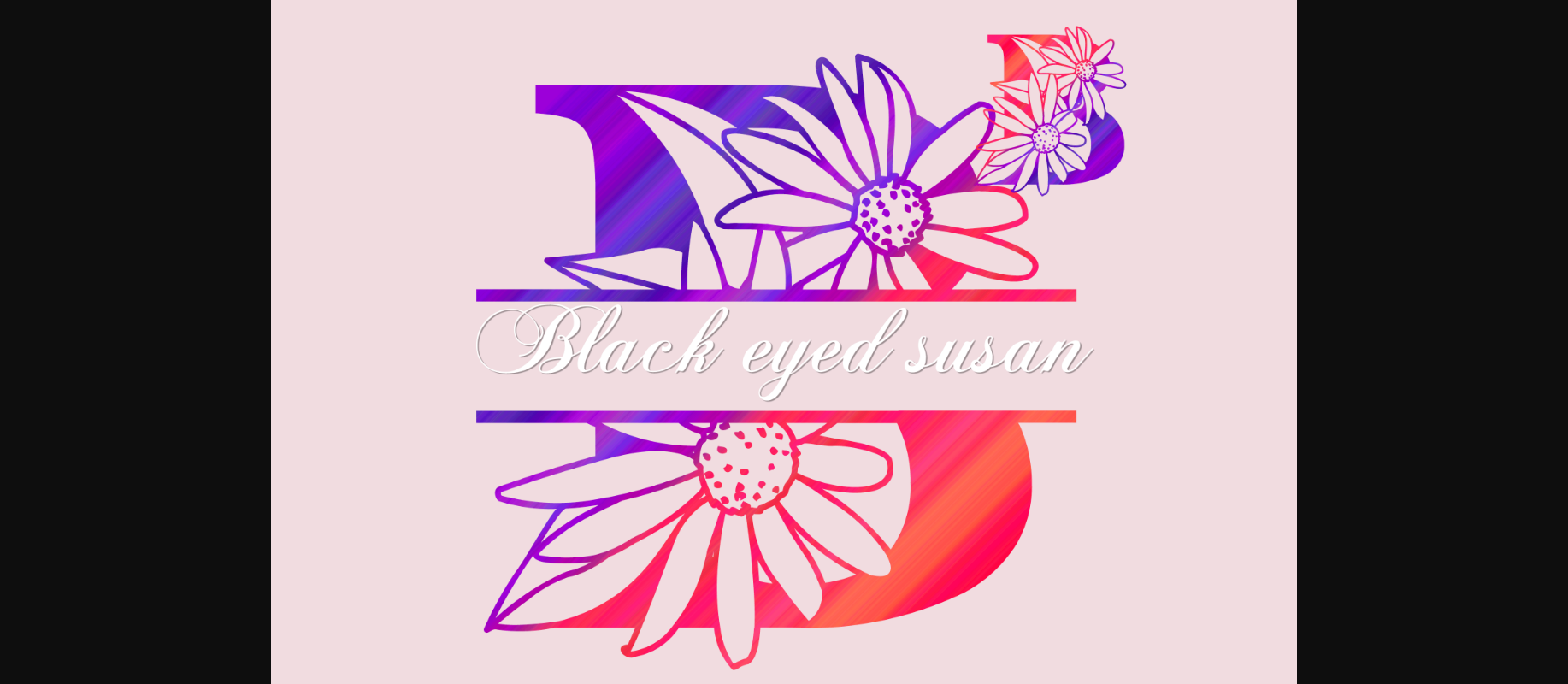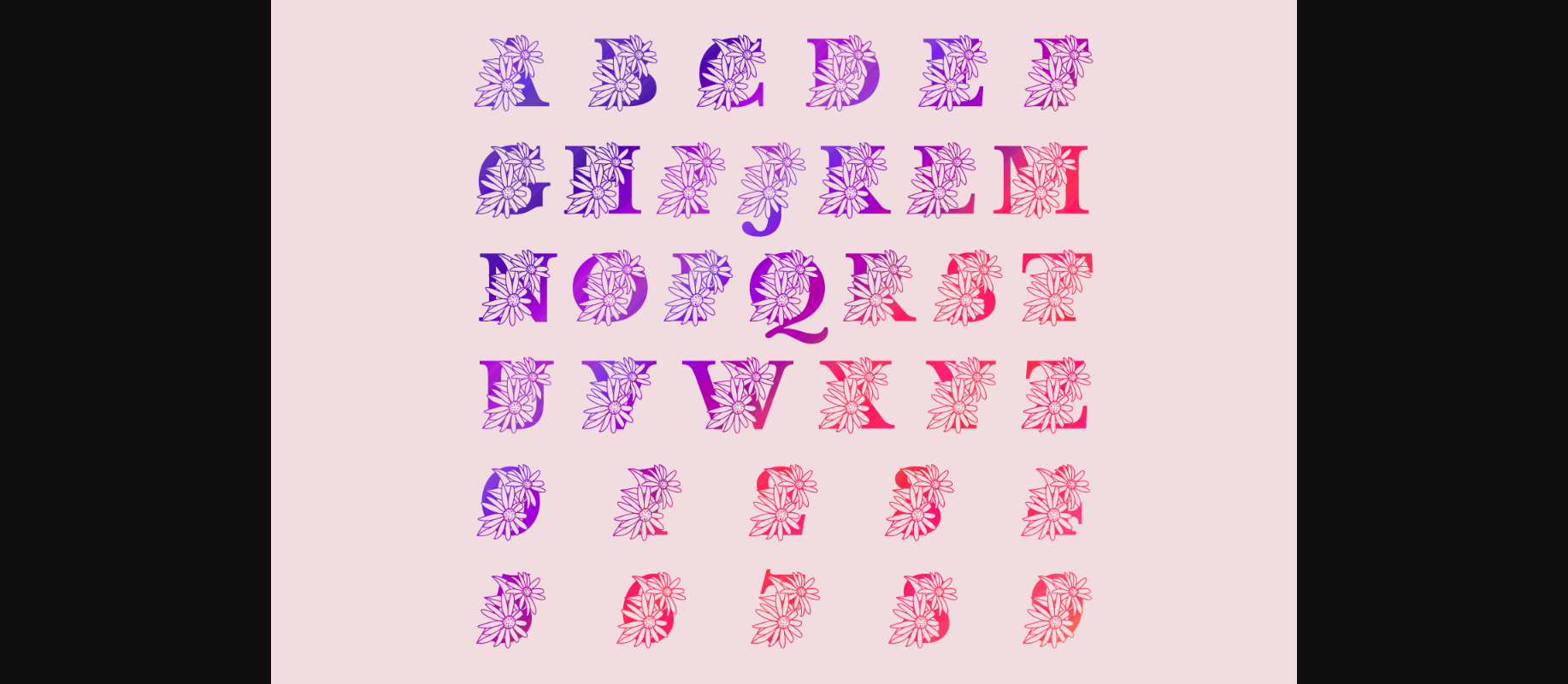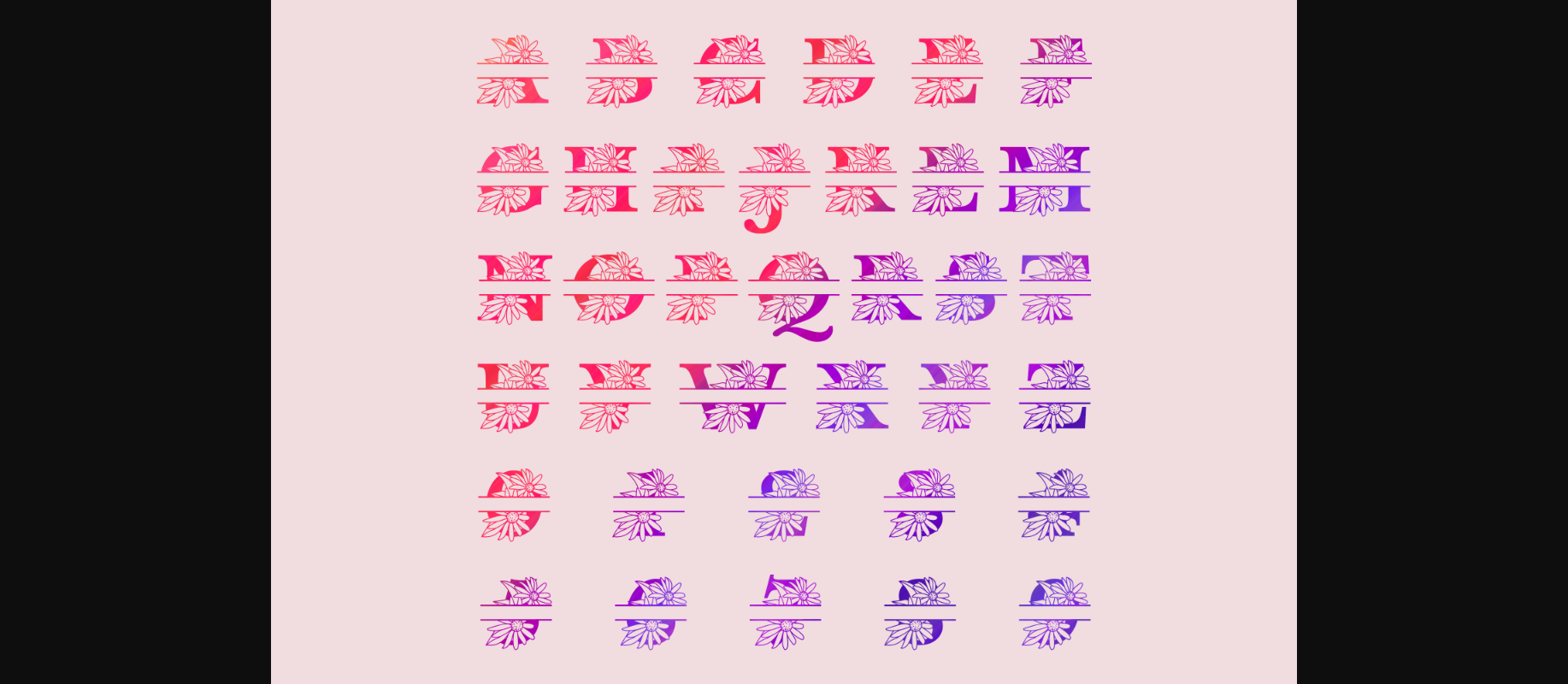
About Black Eyed Susan Split Font
Black Eyed Susan Split is an elegant botanical decorative font consisting of two styles (regular & split). This font is ideal for adding a special decoration to your crafts. Whether you use it for custom designs, DIY crafts, or just any creation that requires a lovely touch, this font will be an amazing choice!